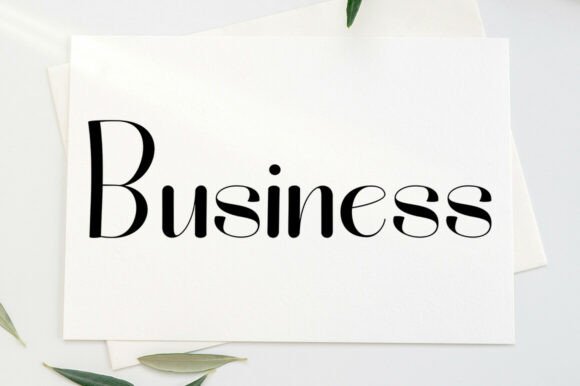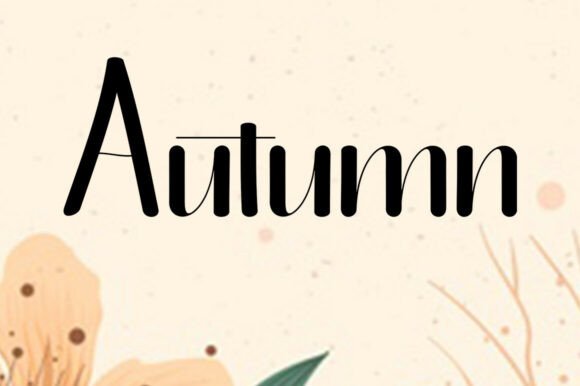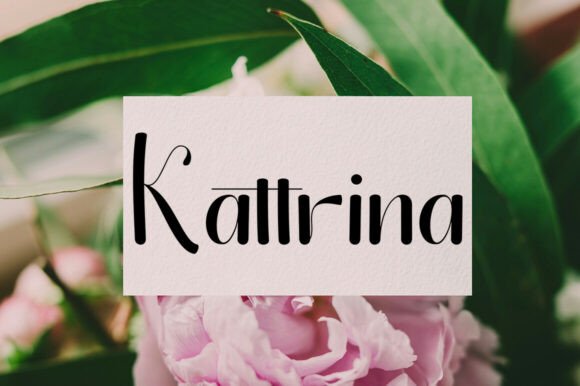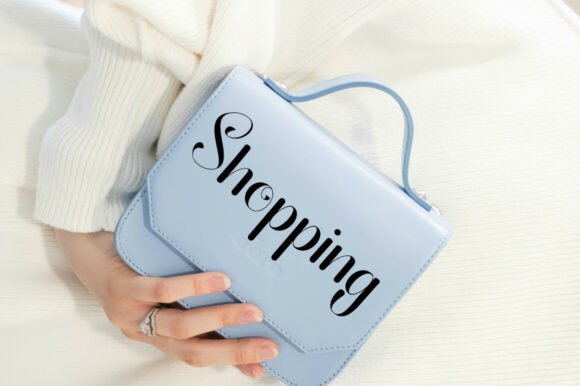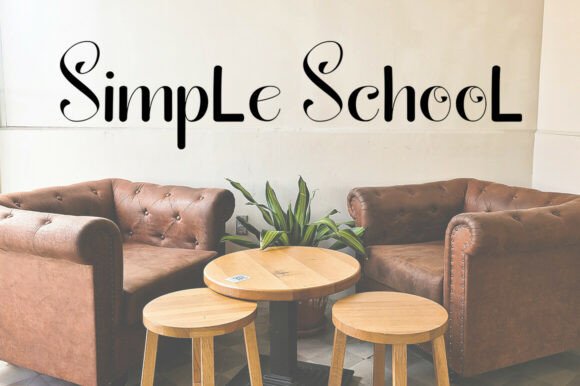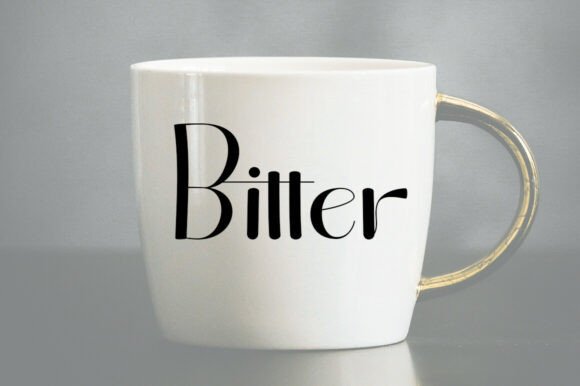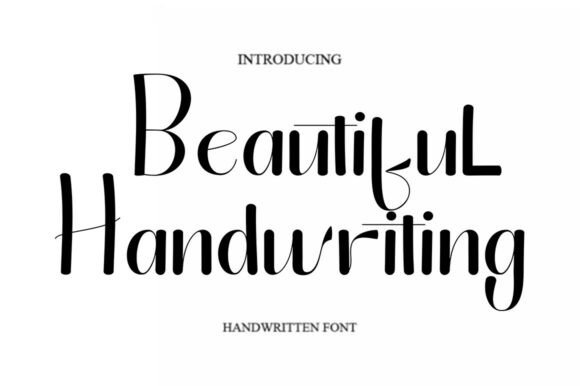
Discover the Charm of Beautiful Handwriting Font
Are you looking for a font that adds a personal touch to your designs? Look no further than Beautiful Handwriting, a playful handwritten display font that is full of charm and personality. This versatile font is perfect for a wide range of projects, from crafters and scrapbooking enthusiasts to graphic designers and social media influencers.
What Makes Beautiful Handwriting Font Special?
Beautiful Handwriting font is a smooth, bold, and highly legible font that makes it an excellent choice for various design projects. Its clean and precise strokes ensure that your designs look professional and visually appealing. Whether you’re working on a children’s book, a scrapbooking project, or a social media post, this font is sure to add a friendly and creative touch to your work.
Perfect for Crafters and Scrapbooking Enthusiasts
Crafters and scrapbooking enthusiasts will love Beautiful Handwriting font for its versatility and ease of use. The font’s smooth strokes make it an excellent choice for cutting with Cricut and Silhouette machines, ensuring clean and precise cuts every time. Use it to create beautiful titles, captions, and quotes for your scrapbooking projects, or add a personal touch to your craft projects with custom labels and tags.
Ideal for Digital and Print Designs
Beautiful Handwriting font is perfect for both digital and print designs. Use it to create stunning social media posts, photo overlays, and graphics for Pinterest, Instagram, or Facebook. The font’s approachable design also works beautifully for seasonal projects such as Halloween, winter holidays, and New Year cards. Whether you’re designing for print or digital platforms, Beautiful Handwriting font is sure to add a touch of personality to your work.
Use Cases for Beautiful Handwriting Font
Beautiful Handwriting font is a versatile font that can be used for a wide range of projects, including:
- Children’s book titles and illustrations
- Scrapbooking projects and photo albums
- Photo overlays and social media graphics
- Gift tags and labels
- Seasonal projects, such as Halloween, winter holidays, and New Year cards
Tips for Using Beautiful Handwriting Font
Here are some tips for using Beautiful Handwriting font in your designs:
- Use it as a title font to add a personal touch to your designs
- Mix and match with other fonts to create a unique and visually appealing design
- Use it to create custom labels and tags for your craft projects
Beautiful Handwriting font is a versatile and charming font that is perfect for designers, crafters, and scrapbooking enthusiasts. Its smooth, bold strokes make it an excellent choice for a wide range of projects, from children’s book titles to social media graphics. With its approachable design and ease of use, Beautiful Handwriting font is sure to add a friendly and creative touch to your work. Try it out today and discover the charm of beautiful handwriting!